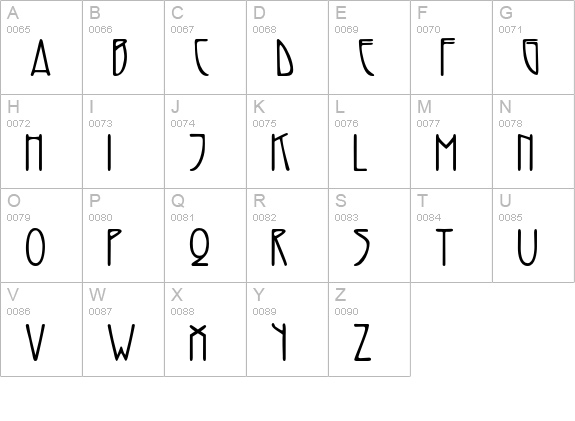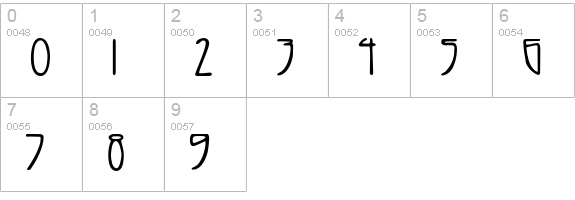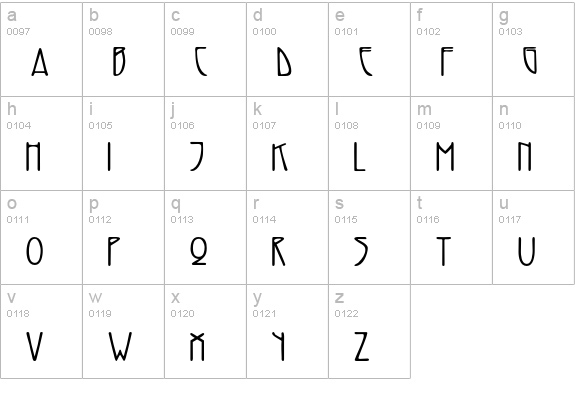
Adresack Font Details
Adresack font is a stylish and modern typeface that combines elegance with a touch of playfulness. Its sleek lines and unique letterforms make it perfect for a wide range of design projects, from logos to branding to social media graphics. The font's versatility and readability ensure that your message will always stand out. The best part? Adresack font is completely free! You can download this fantastic font at FontsMarket.com and start using it in your projects right away. Whether you're a seasoned designer or just starting out, Adresack font is sure to elevate your work and add a touch of sophistication. Don't miss out on this amazing opportunity to enhance your designs with this beautiful and free font.